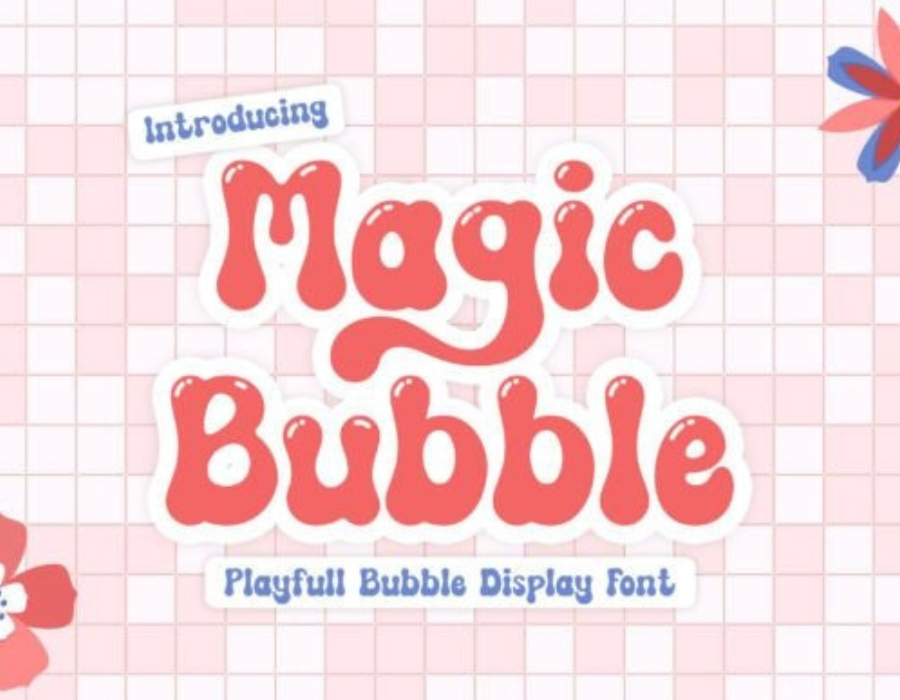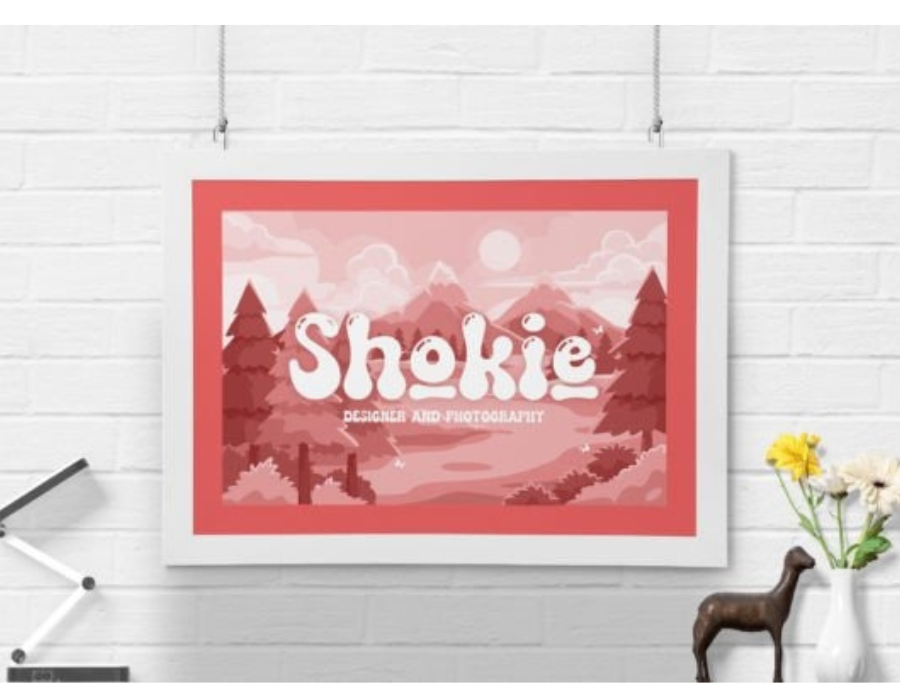
Magic Bubble Font
Magic Bubble Font: A Whimsical Typeface with Enchanted Charm
In the vast world of typography, some fonts are crafted not just to communicate but to spark imagination. Magic Bubble Font is one such enchanting typeface—a perfect blend of whimsy, creativity, and charm. Designed to captivate and delight, Magic Bubble Font brings a bubbly personality with a dash of magical fantasy, making it a favorite among designers aiming to infuse joy and playfulness into their work.
From children’s books to event invitations and everything in between, this typeface adds a sprinkle of fun wherever it appears. In this article, we explore the essence of Magic Bubble Font: its design philosophy, key features, ideal use cases, and how designers can use it to transform their creative visions into magical realities.
What is Magic Bubble Font?
Magic Bubble Font is a decorative display font known for its round, fluffy letterforms and whimsical aura. It is characterized by inflated shapes that mimic soap bubbles, giving the impression of lightness and fun. The typeface exudes friendliness and an almost storybook-like quality, making it ideal for both personal and commercial projects that call for lighthearted creativity.
The word “magic” in its name isn’t just for show—it genuinely feels magical. Whether it’s used for a children’s product, fantasy-themed brand, or playful headline, Magic Bubble makes typography feel like a visual treat.
Design Characteristics of Magic Bubble Font
Magic Bubble Font isn’t just another rounded font. It carries a unique personality through several design elements that help it stand out:
✦ Rounded, Inflated Letterforms
Each character in the font looks like it’s been blown up like a balloon or bubble—soft, pillowy, and full of volume. This inflated aesthetic makes it look friendly and touchable.
✦ Playful Geometry
The letters are crafted with whimsical, asymmetrical curves and subtle irregularities. This intentional imperfection gives the font a hand-crafted, cartoonish vibe.
✦ Quirky, Fun Styling
Magic Bubble often includes additional stylistic elements such as stars, sparkles, or heart-shaped dots on the letter “i,” enhancing its magical appearance.
✦ Bold and Decorative
While legible, Magic Bubble is best used as a decorative or headline font. Its boldness ensures visibility, while its decorative elements add visual charm.
✦ Multilingual Support (Optional)
Many versions of Magic Bubble Font come with multilingual character support, making it accessible for global projects.
Perfect Use Cases for Magic Bubble Font
Because of its whimsical nature, Magic Bubble Font shines brightest in design settings that prioritize playfulness, emotion, and imagination. Here are some ideal ways to use this font:
1. Children’s Products
Magic Bubble is an ideal typeface for anything related to children—books, toys, apparel, party supplies, and learning materials. It captures youthful joy and adventure.
2. Birthday and Event Invitations
Want your birthday or baby shower invitation to pop off the page? adds celebration and excitement with every letter.
3. Fantasy or Fairytale Branding
The font’s magical vibe makes it perfect for branding related to fairytales, fantasy games, kids’ theaters, or whimsical storytelling apps.
4. Social Media Graphics
Instagram posts, TikTok titles, Pinterest pins—Magic Bubble draws attention and conveys playfulness in a digital world full of sameness.
5. Merchandise Design
Designers creating stickers, mugs, t-shirts, or planner accessories can use Magic Bubble to infuse fun and fantasy into their merchandise.
6. Logos for Fun Brands
Magic Bubble works well for playful businesses like cupcake shops, candy brands, toy stores, or kid-friendly services.
Why Designers Love Magic Bubble Font
Magic Bubble Font is more than just cute—it offers real value for creatives who want to tell an engaging story with their typography.
✦ Emotional Appeal
Rounded, inflated fonts are psychologically linked to softness, safety, and approachability. Magic Bubble goes a step further, evoking curiosity and wonder.
✦ Stands Out Visually
With its bold shapes and bubble-like structure, this font easily grabs attention—whether on packaging, a webpage, or a storefront.
✦ Versatile within a Niche
While it’s not for corporate reports or minimalist designs, Magic Bubble works brilliantly in any project that allows for creativity and visual play.
✦ Easy to Read at Larger Sizes
Despite its decorative flair, Magic Bubble remains legible in headlines and titles, making it practical for various print and digital mediums.
Creative Tips for Using Magic Bubble Font
Using Magic Bubble Font effectively requires a creative approach. Here are some design tips to get the most out of this expressive typeface:
1. Pair with a Clean Font
Since Magic Bubble is highly decorative, it pairs best with minimalist sans-serif or script fonts that won’t compete for attention. Use it for headings and pair with something like Montserrat or Open Sans for body text.
2. Use Bright and Pastel Colors
Magic Bubble thrives in a colorful environment. Try using pastels, candy colors, or even gradients to enhance its bubbly, lighthearted appeal.
3. Add Illustrative Elements
Consider surrounding the text with sparkles, stars, balloons, clouds, or other doodle-like illustrations. This reinforces the font’s magical, imaginative character.
4. Scale Appropriately
Avoid using Magic Bubble Font for long paragraphs. It’s best at large sizes where the playful forms can really shine and stay readable.
5. Use in Layered Designs
Try layering the font with drop shadows or 3D effects to enhance its inflated look. You can even simulate depth to make it look like floating bubble letters.
Inspiration from Magic Bubble in Modern Design
Modern design trends like Y2K nostalgia, maximalist, and kawaii culture often embrace bubbly, bold fonts. Magic Bubble fits right into these aesthetics. You’ll see similar fonts used in:
• Sticker packs and emojis
• YouTube thumbnails and kid influencers’ logos
• Packaging for candy, bath bombs, and slime products
• Etsy shops selling pastel-themed merchandise
• Fantasy-themed board games or mobile apps
Conclusion: Magic Bubble Font Adds Wonder to Every Word
In a world where many designs strive to be sleek and minimal, stands out with unapologetic joy. It’s a typeface that tells you not to take life too seriously, encouraging fun, imagination, and a touch of magic in every message. Whether you’re a professional designer or a hobbyist creating for birthdays and celebrations, brings your text to life in the most whimsical way possible.
With its soft, round characters and charming personality, reminds us that sometimes the best designs are the ones that make us smile. Add it to your font collection and see how it transforms your creative projects into delightful, enchanted expressions.